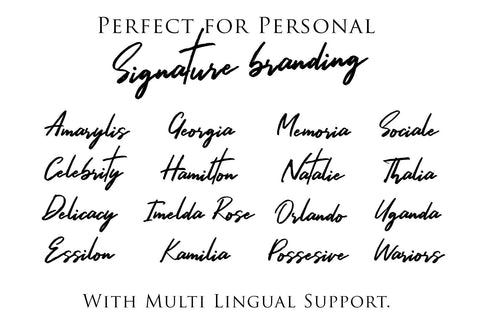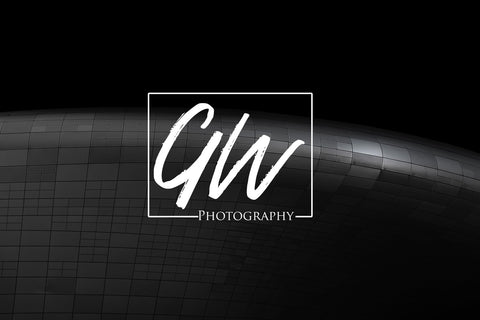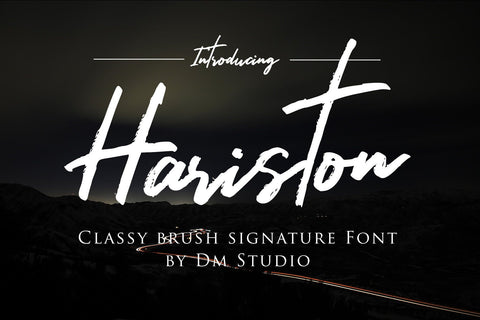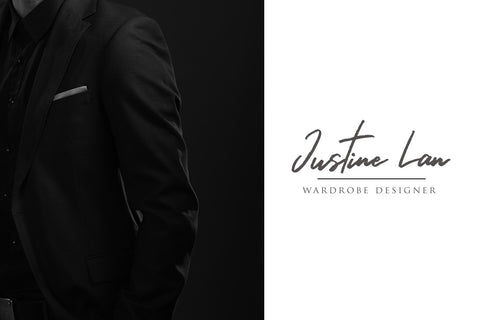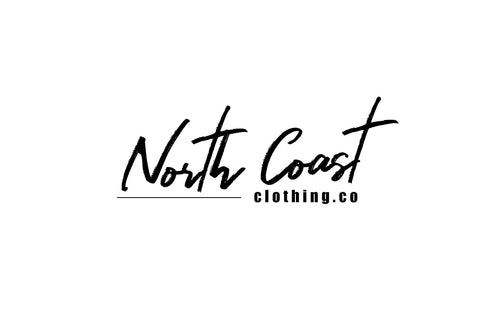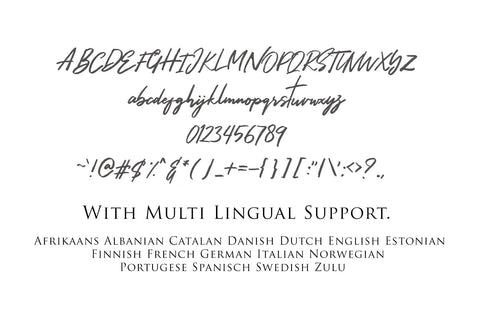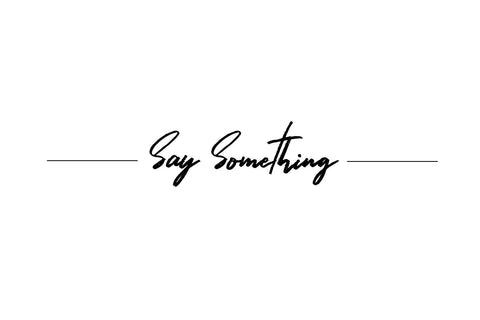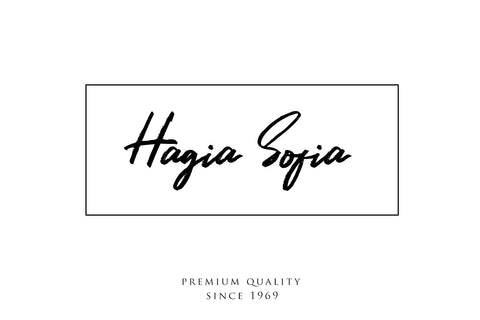
Hariston - Classy Signature Font
Introducing , Hariston Classy Signature Font !
It's a handwritten, natural, and versatile brush font, that will give your design a classy, unique and different style.
Suitable for branding, logo, initial logo, digital signature, promotion, printing, name card, social media posts or quotes.
Hariston features :
• Uppercase, lowercase, numerals and symbols
• Support multilingual